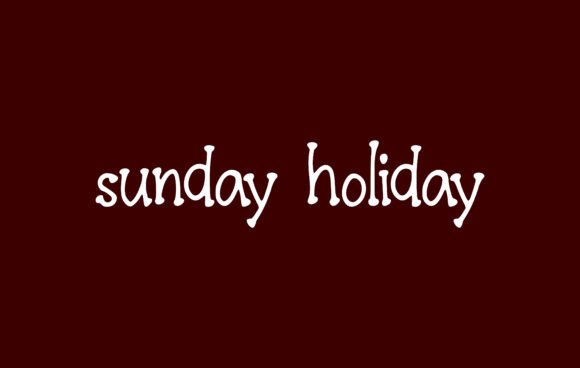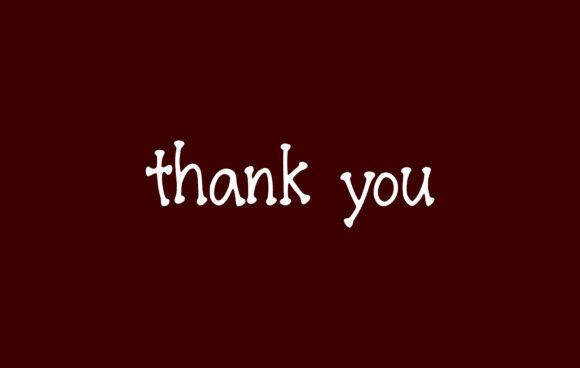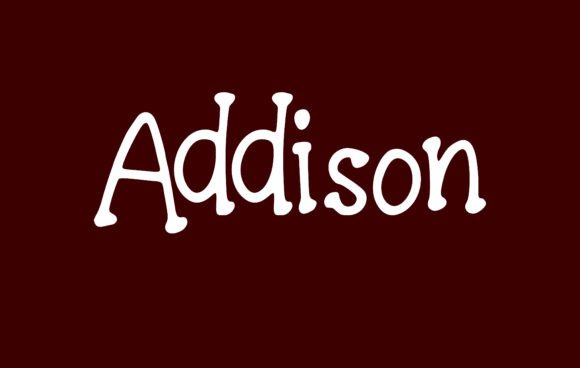
Discover the Charm of Addison Font: Elevate Your Designs with a Romantic Touch
In the world of typography, a font can make all the difference in bringing your creative visions to life. If you’re on the hunt for a typeface that combines elegance, legibility, and a dash of romance, look no further than the Addison Font. This authentic handwritten font is designed to capture the hearts of designers and crafters alike, offering a versatile tool to elevate your projects to new heights.
The Essence of Addison Font
Addison Font is more than just a collection of letters; it’s an experience. With its roots in traditional handwriting, this font has been expertly crafted to exude a romantic touch, reminiscent of handwritten notes and letters from a bygone era. Yet, it does so with a modern flair that ensures it remains highly legible and adaptable across various design applications.
One of the standout features of Addison Font is its incredible versatility. Whether you’re working on a magazine headline, a social media post, a brand identity, a wedding invitation, or a greeting card, this font seamlessly integrates into any design. Its flexibility allows it to shine not just as a title font, but also as a body text, making it an all-around favorite for designers.
Why Choose Addison Font?
• Romantic Appeal: In an age of digital communication, Addison Font brings a much-needed personal touch to your designs, making them stand out with a unique charm.
• Legibility: Despite its handwritten nature, Addison Font maintains a high level of legibility, ensuring your message is conveyed clearly and effectively.
• Authenticity: Being an authentic handwritten font, it adds an element of genuineness to your designs, making them more relatable and engaging.
• Wide Range of Applications: From digital media to print, Addison Font’s adaptability knows no bounds, making it a valuable addition to any designer’s toolkit.
Applications of Addison Font
The possibilities are endless with Addison Font. Here are a few ideas to get you started:
• Magazine Headlines: Create eye-catching titles that draw readers in with the font’s distinctive charm.
• Social Media: Stand out on crowded feeds with elegant and readable posts.
• Branding: Establish a unique brand voice with a custom typography that speaks to your audience.
• Wedding Invitations: Convey the romance and significance of the occasion with beautifully designed invites.
• Cards: Whether it’s a birthday, anniversary, or just because, add a personal touch to your greetings.
Addison Font is more than just a typeface; it’s a design companion that brings a touch of elegance and romance to your projects. Its unique blend of traditional charm and modern legibility makes it an indispensable asset for designers and crafters looking to leave a lasting impression. Whether you’re aiming to create stunning magazine headlines, captivating social media content, or heartfelt wedding invitations, Addison Font is your gateway to transforming your creative ideas into memorable experiences.